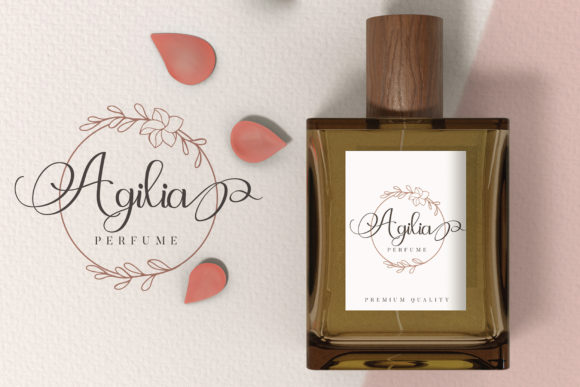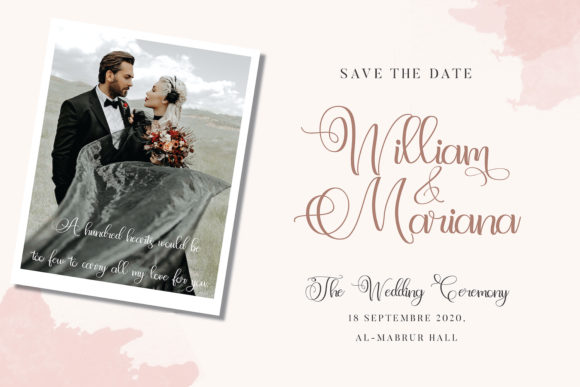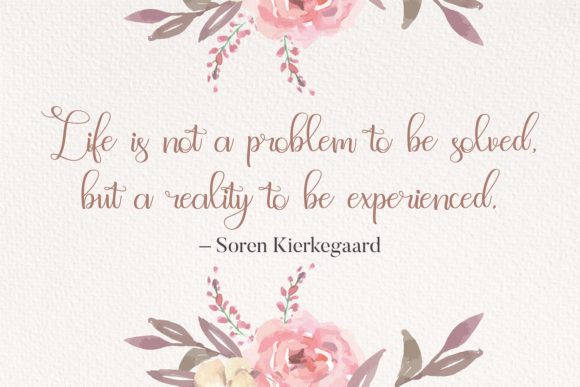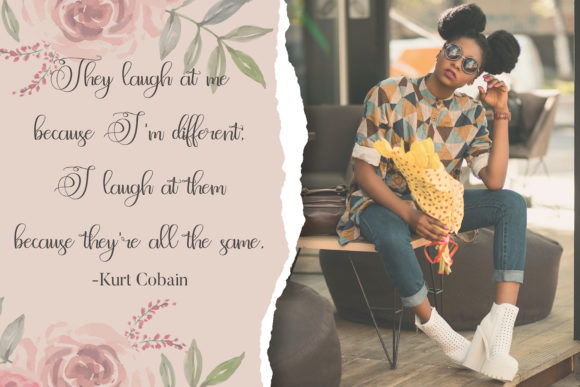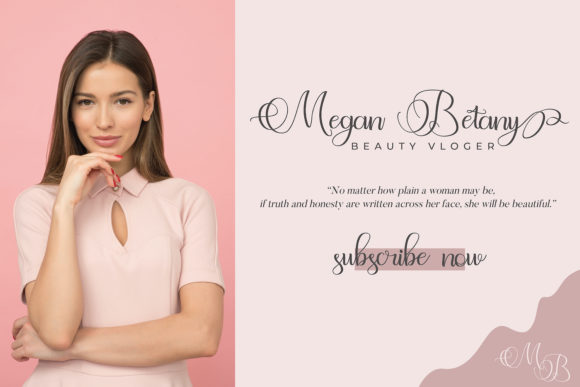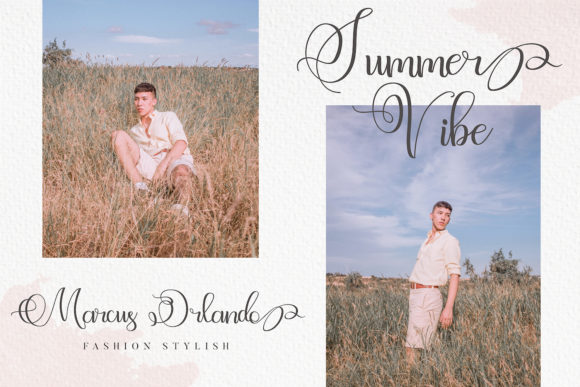
Discover the Timeless Elegance of Angeliny Font
Have you ever stumbled upon a font that instantly sparks creativity and makes you want to create something beautiful? That’s exactly what happens when you lay eyes on the Angeliny Font. As a designer, there’s nothing quite like the thrill of finding the perfect font to bring your vision to life.
Angeliny Font is a delicate and elegant handwritten font that has captured the hearts of designers and artists worldwide. Its distinct and well-rounded letters make it a masterpiece that can elevate any design. Whether you’re working on a wedding invitation, a branding project, or a creative blog post, Angeliny Font is the perfect choice to add a touch of sophistication and style.
With its incredibly versatile style, Angeliny Font is a valuable asset for designers who want to create spectacular designs that stand out from the crowd. Its timeless elegance makes it a great choice for projects that require a classic and refined look.
Angeliny Font Key Features
- Font Family: Angeliny Font is a unique, high-quality font family that includes multiple weights and styles.
- Unique Characteristics: Angeliny Font features elegant, cursive script lines and intricate details, making it ideal for invitations, wedding stationery, and other special occasions.
Angeliny Font Review
Angeliny Font is a beautiful script font that can add a touch of elegance to any design. ✨ The flowing connections between letters create a sense of movement and fluidity, making it perfect for headings and titles. The font’s subtle irregularities give it a hand-drawn feel, which adds to its charm.
One of the things that stands out about Angeliny Font is its versatility. ✨ It works well for both digital and print projects, and can be used in a variety of contexts, from wedding invitations to branding materials. The font is also highly legible, making it a great choice for body text.
While Angeliny Font is a great choice for many projects, there are some limitations to consider:
- ⚠️ The font may not be suitable for projects that require a lot of text, as the connections between letters can make it difficult to read at smaller sizes.
- ⚠️ The font’s flowing connections can also make it challenging to use in projects that require precise alignment or spacing.
Overall, I’m impressed with Angeliny Font. It’s a beautiful and versatile font that can add a touch of sophistication to any design. While it may have some limitations, it’s a great choice for projects that require a elegant and flowing script font.
Tips for Getting the Most Out of Angeliny Font
Angeliny Font is perfect for creating elegant and sophisticated designs. To get the most out of it, use it for titles, headings, and other emphasis text. You can also experiment with different font sizes and colors to create visually appealing combinations.
Angeliny Font is ideal for:
- Magazine and book covers